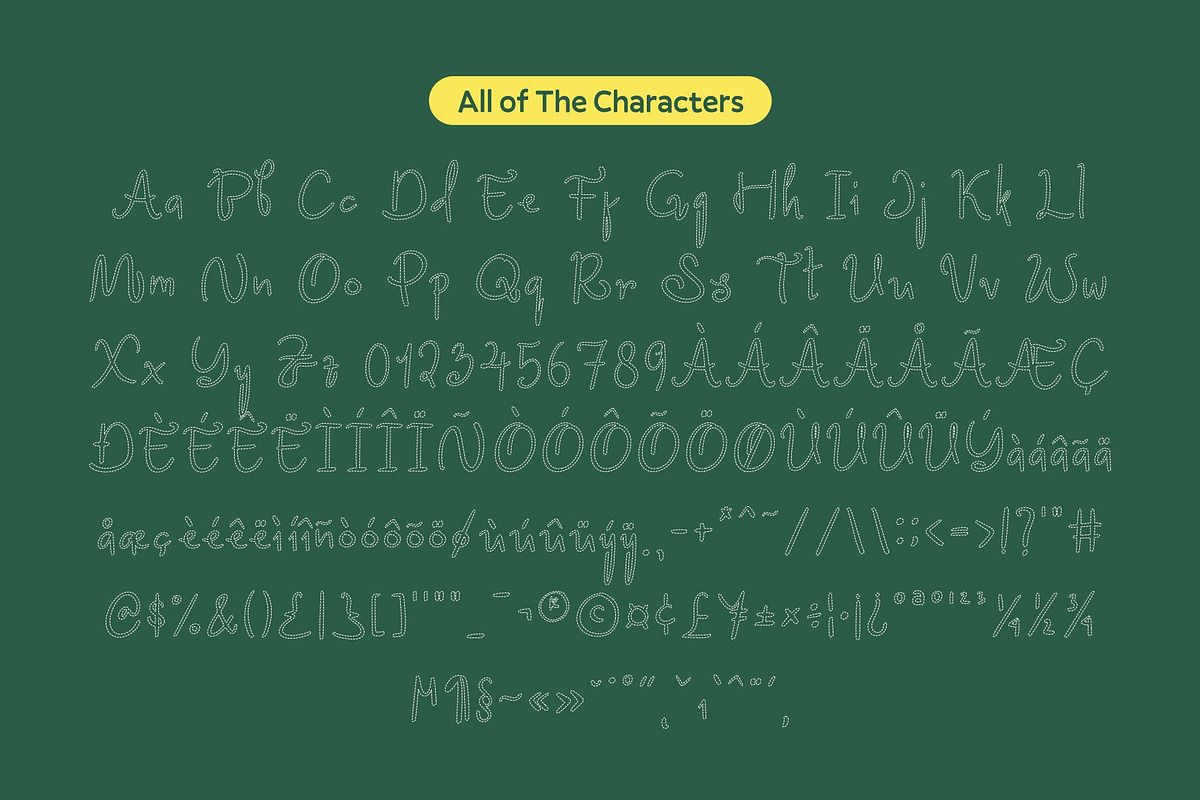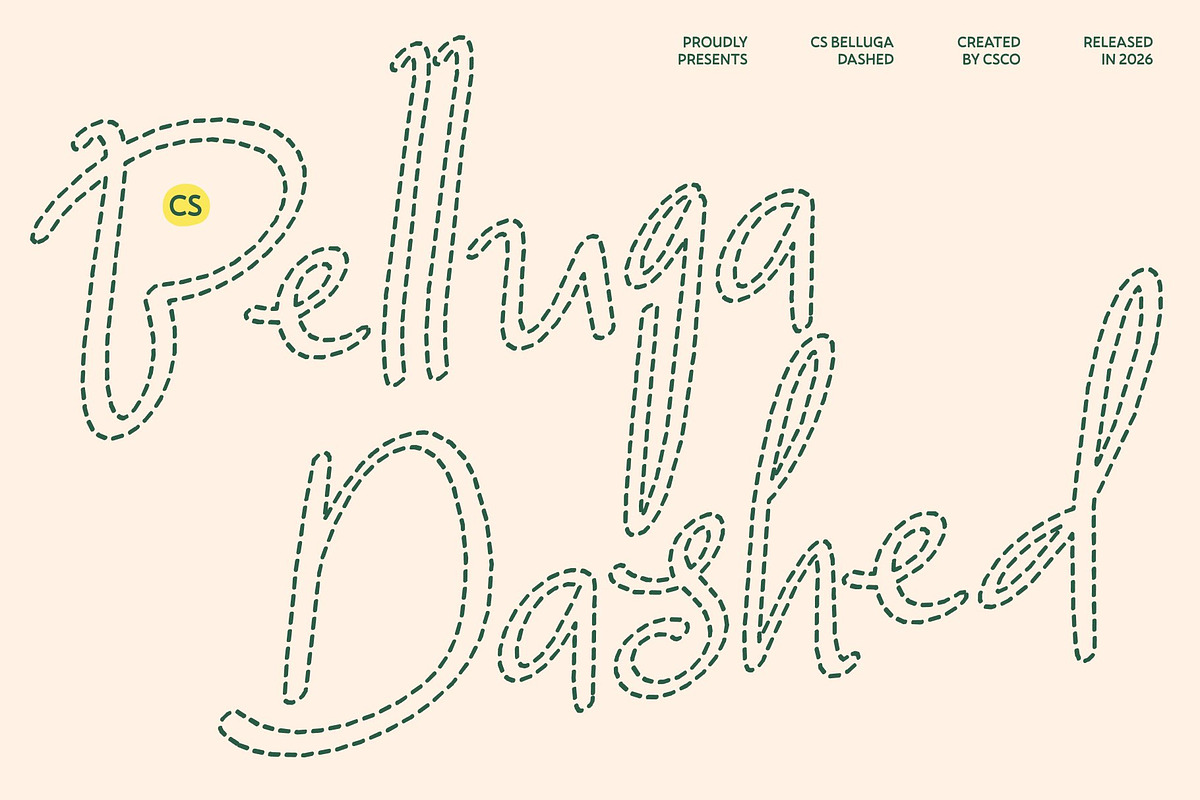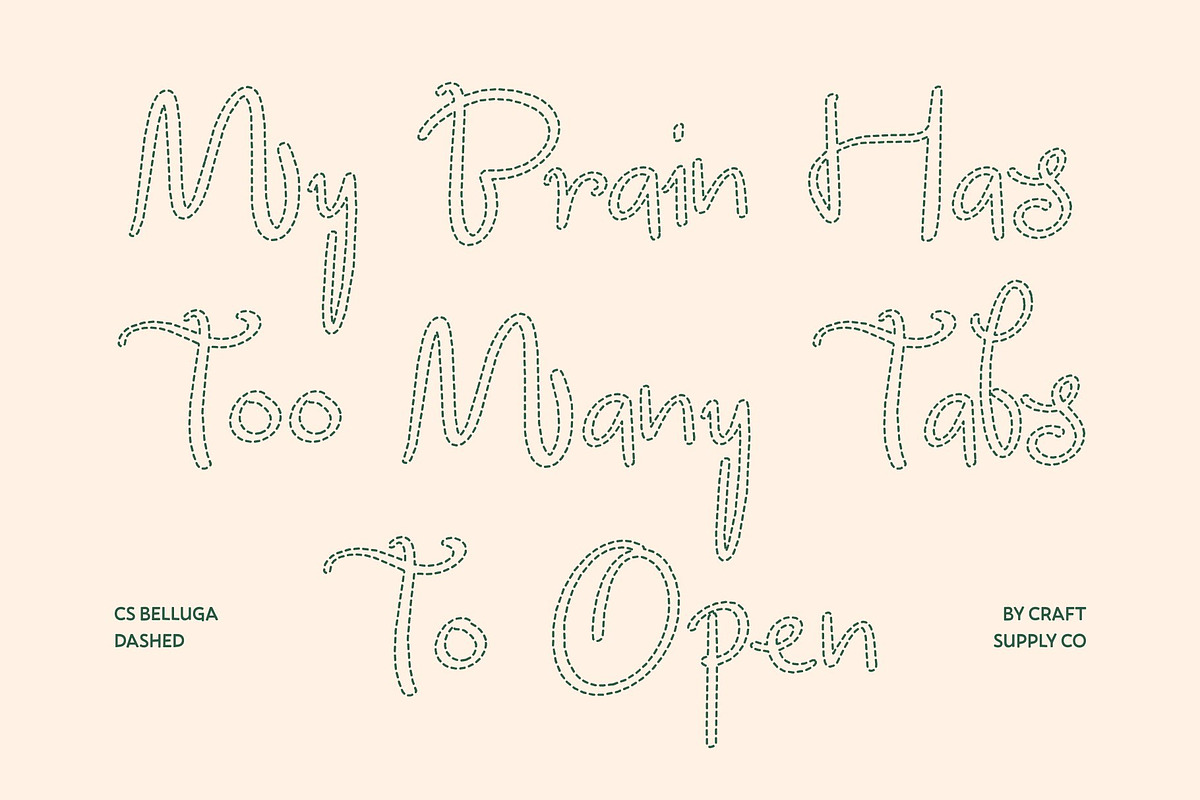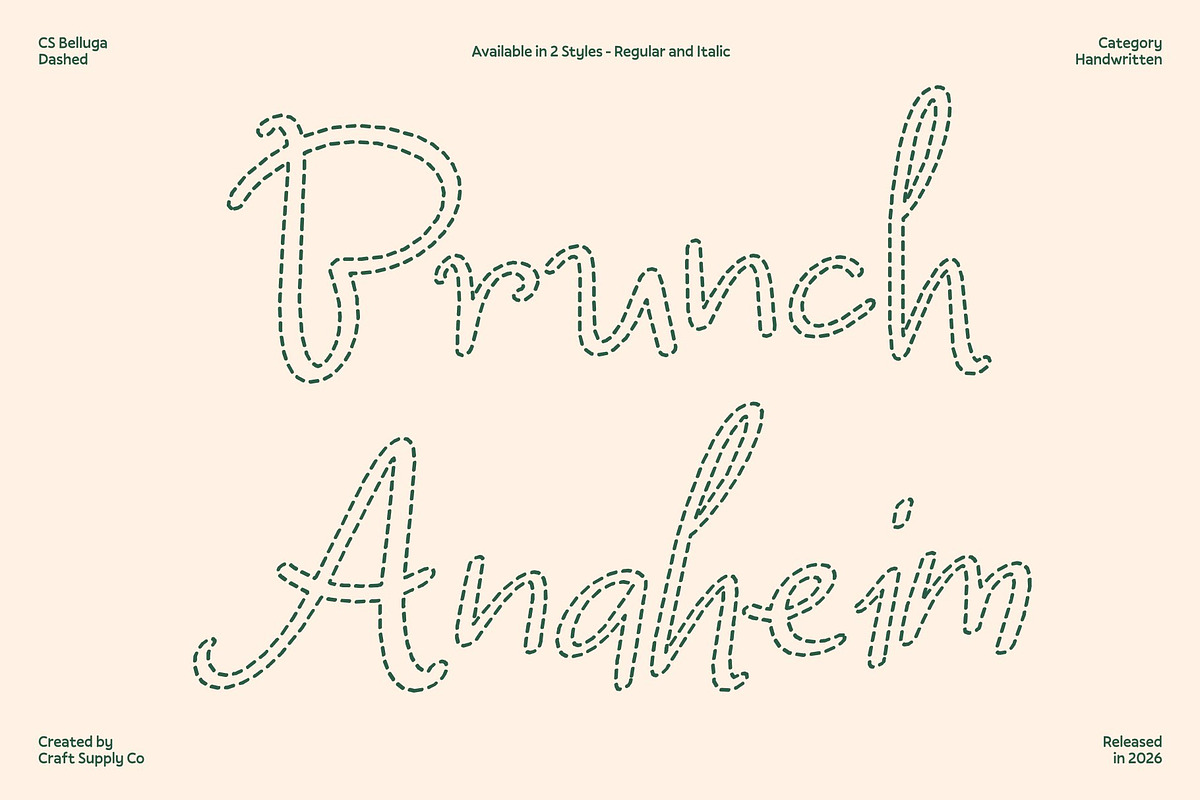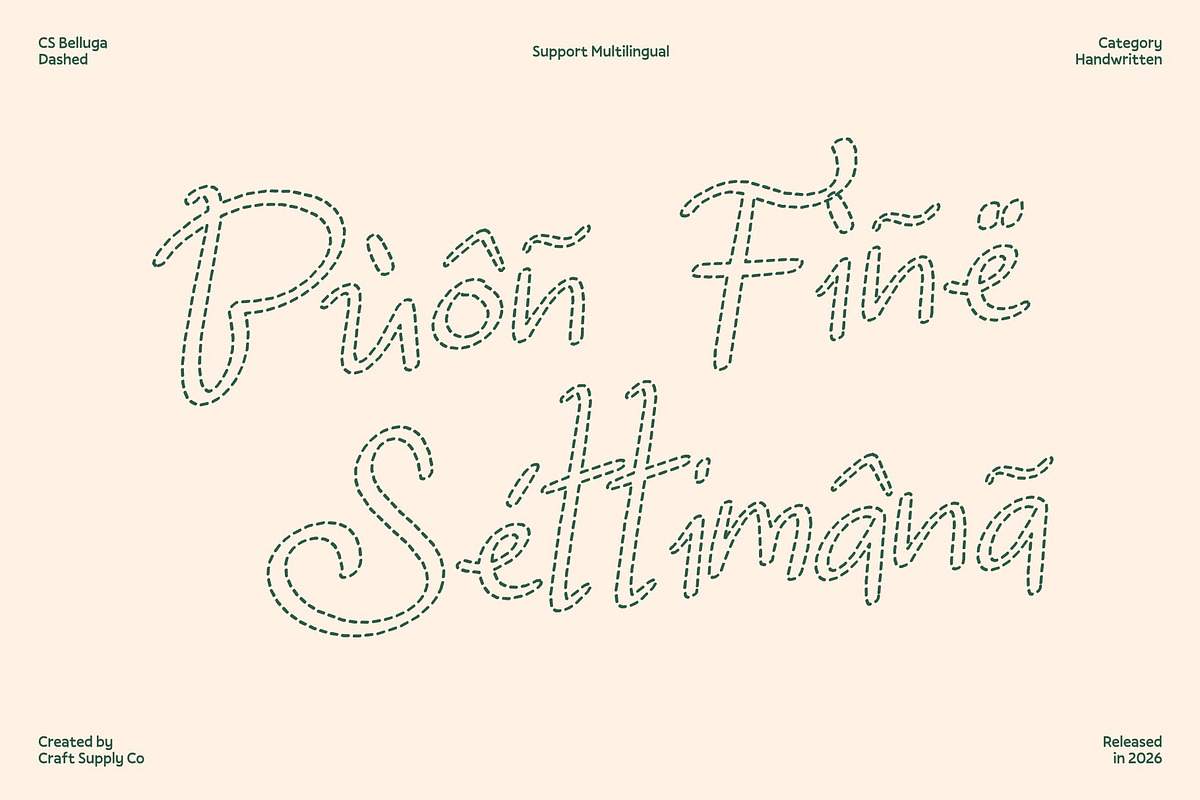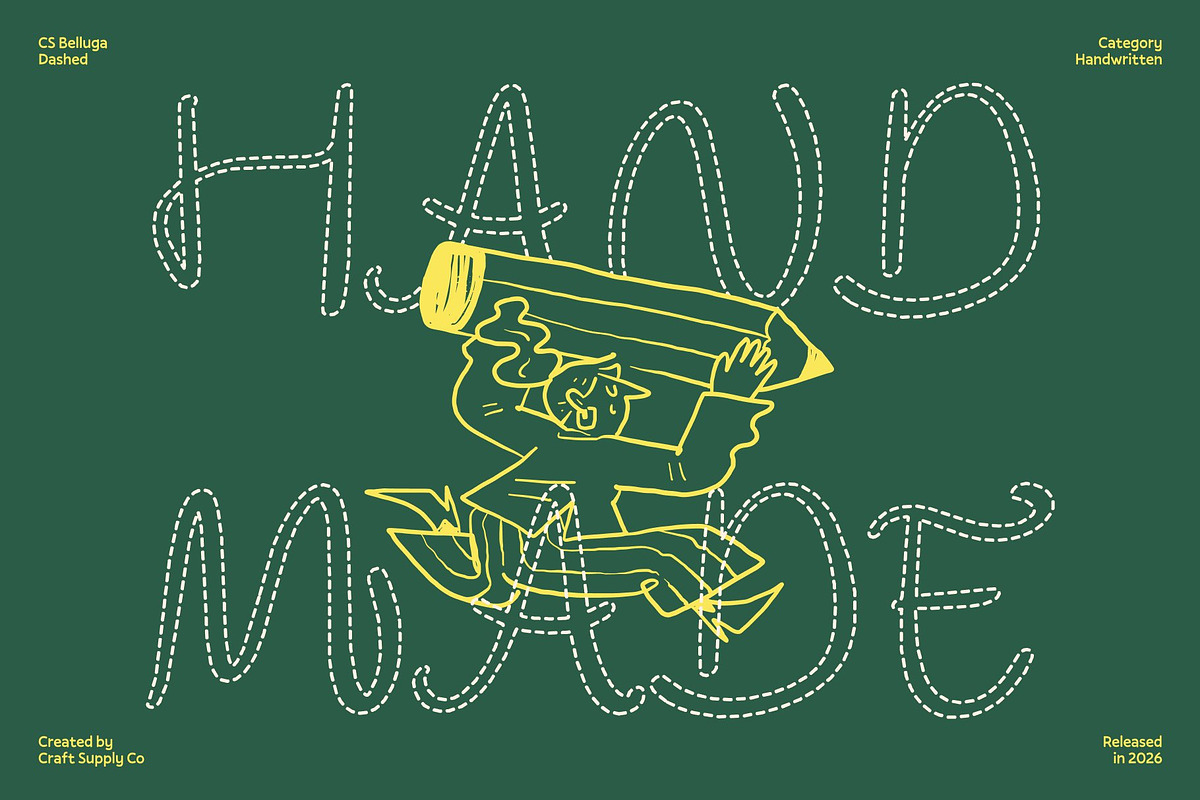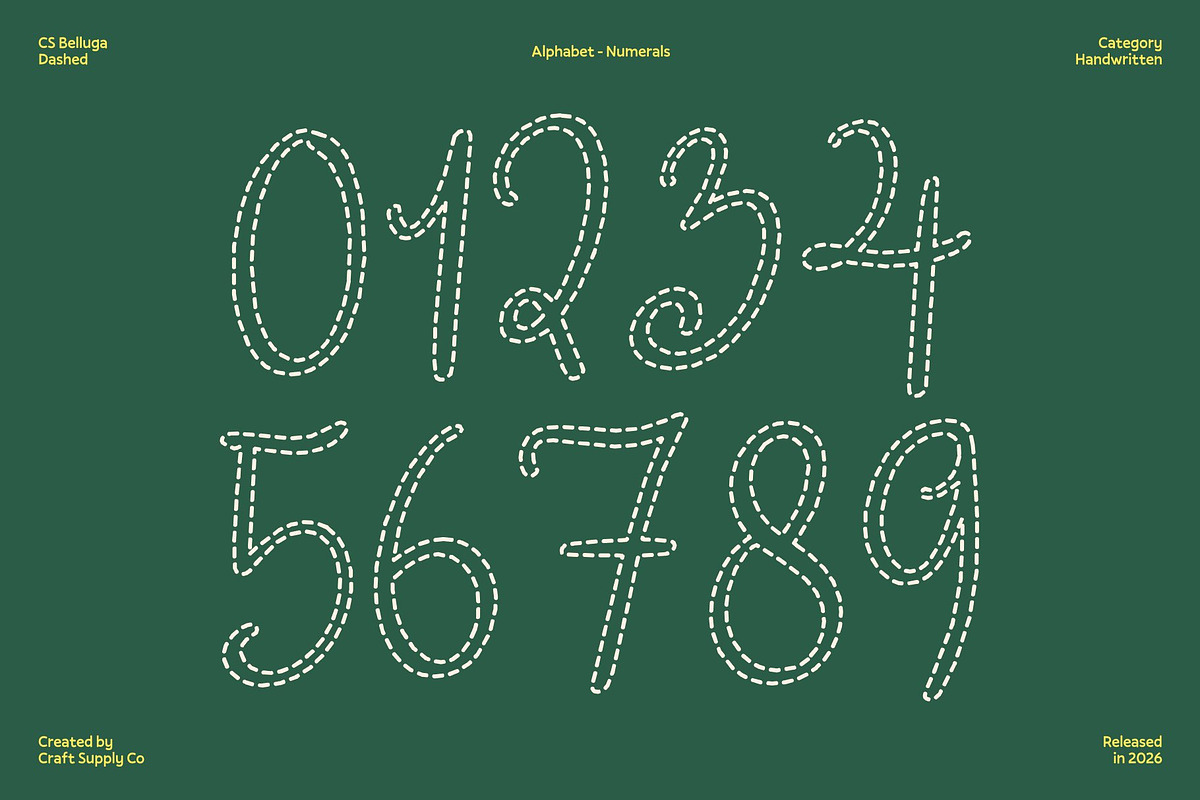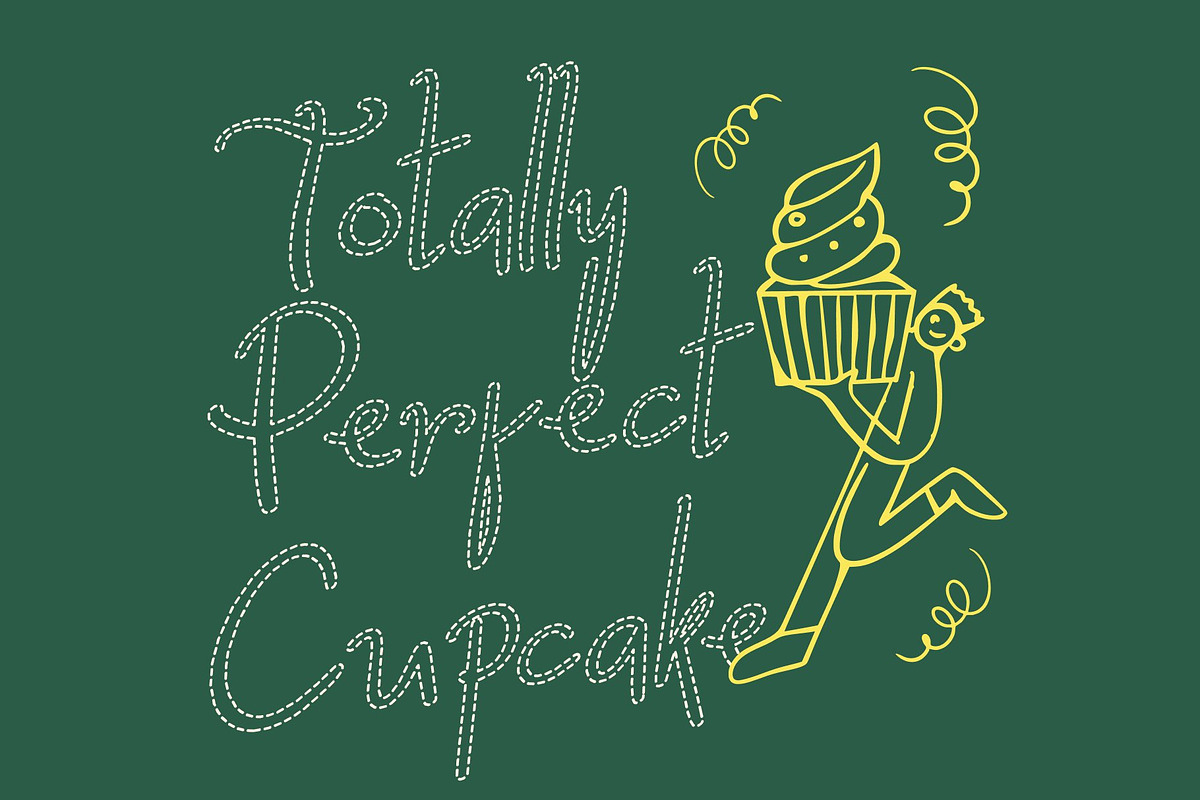
CS Belluga Dashed
CS Belluga Dashed – Whimsical Beauty with a Playful Heart
Handwritten Whimsy with a Dashed Flow This is a lively, whimsical script font that combines graceful handwritten curves with a playful dashed structure. Each letter is composed of short, broken strokes that capture motion, spontaneity, and creative energy, giving your text a dynamic and airy personality.
Playful Curves for Delightful Expression The flowing, dashed lines create a rhythm that feels cheerful and personal. Gentle swirls and organic connections evoke movement and joy, enhancing the font’s whimsical charm while maintaining readability. Its playful forms are ideal for expressing happiness, romance, or celebration.
Imaginative Style for Creative Projects With its unique combination of broken lines and graceful letterforms, this font stands out for artistic and cheerful designs. Perfect for love letters, wedding invitations, beauty branding, or artistic posters, the font brings a lively, handcrafted aesthetic to every word.
Perfect for Romantic and Joyful Creations From party invitations and wedding stationery to inspirational quotes and lifestyle graphics, this font adds elegance, whimsy, and warmth. Its playful dashed structure makes each project feel creative, approachable, and full of personality, transforming text into an expressive, dynamic visual delight.